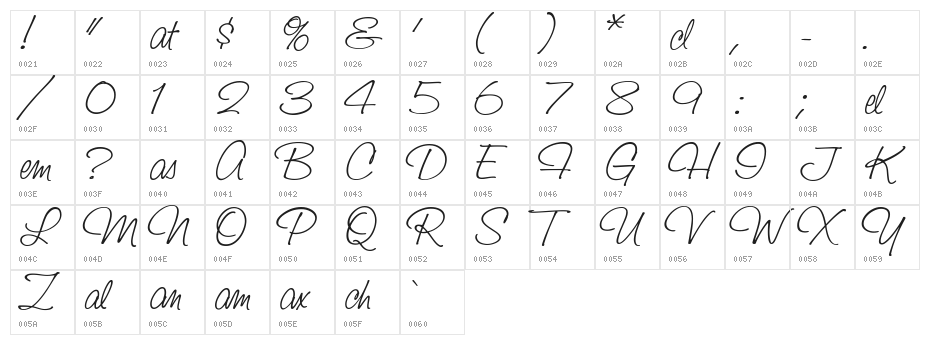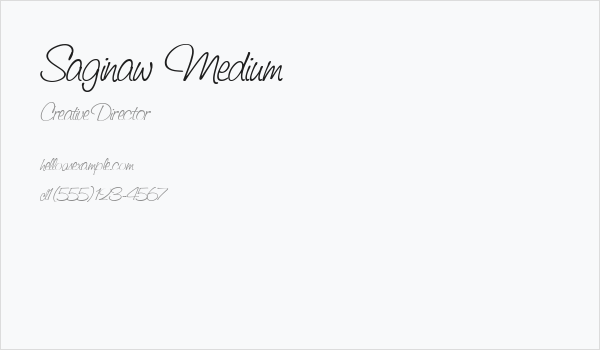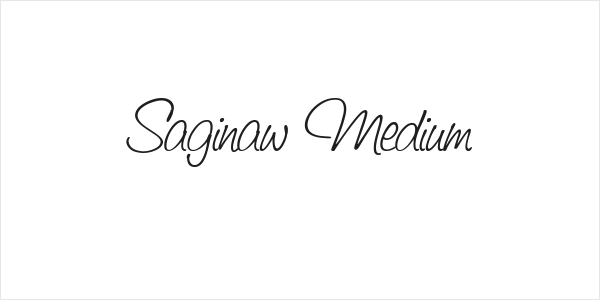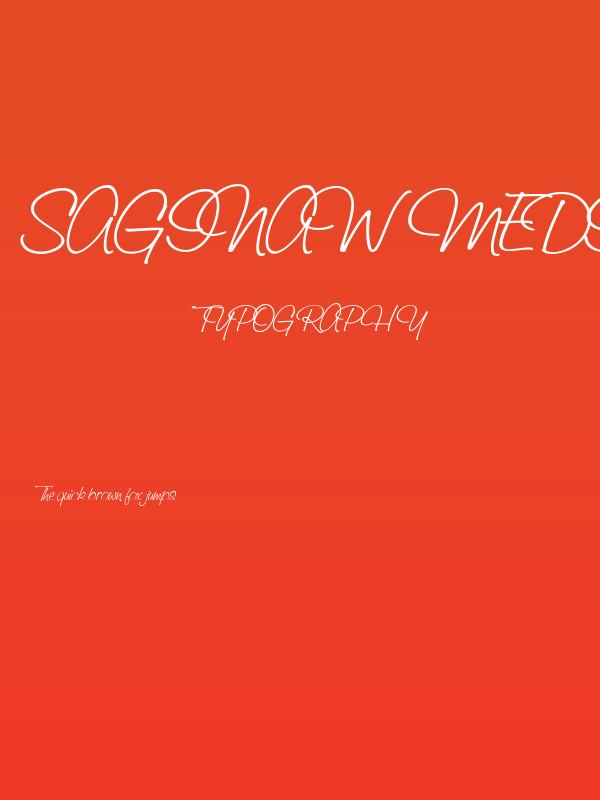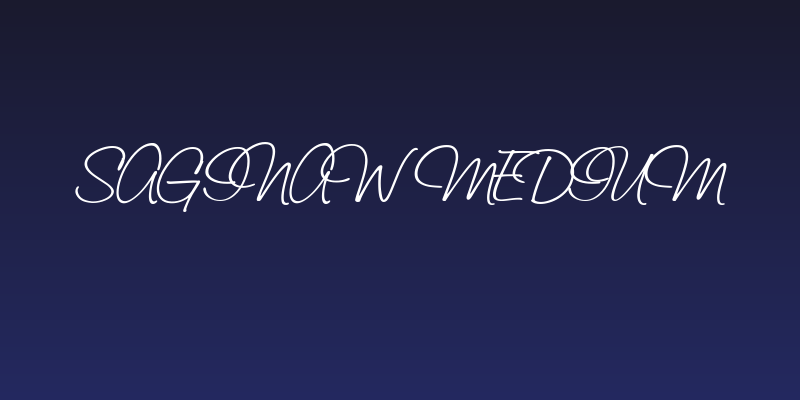
Saginaw Medium Font
Saginaw Medium Description
This font features a flowing, cursive style with elegant, looping strokes that give it a handwritten appearance. The uppercase letters are particularly ornate, with sweeping curves and a consistent slant that adds a sense of motion and grace. The lowercase letters maintain this fluidity, offering a harmonious blend of form and function. The numerals are equally stylish, with a slight slant and rounded forms that complement the overall aesthetic. Special characters are designed with the same attention to detail, ensuring a cohesive look across all glyphs. This font is ideal for projects that require a personal touch, such as invitations, greeting cards, or branding materials.
Proposed ProjectsIdeal for invitations, greeting cards, branding materials, and any project requiring a personal touch.